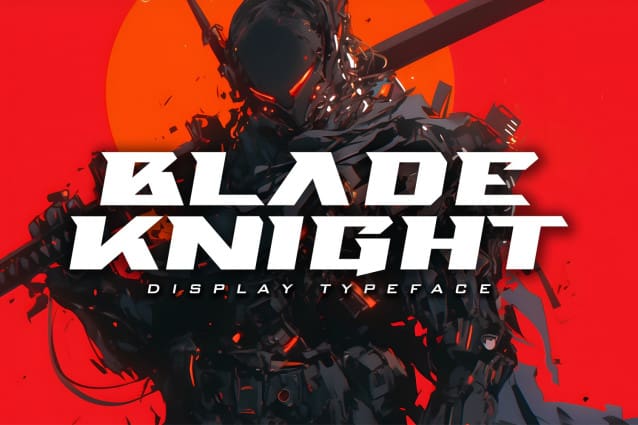
Blade Knight Font
Blade Knight Font is a bold typeface, modern design featuring sharp edges and sleek lines. Ideal for creating striking headlines, logos, and branding materials, this typeface exudes a sense of strength and sophistication. Perfect for projects needing a contemporary and powerful visual impact.